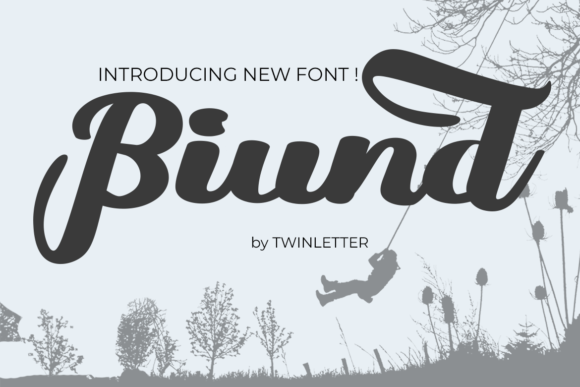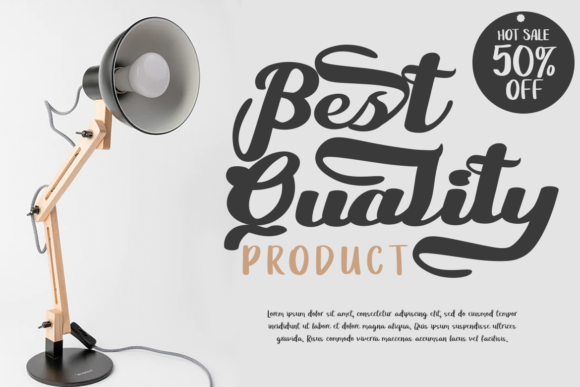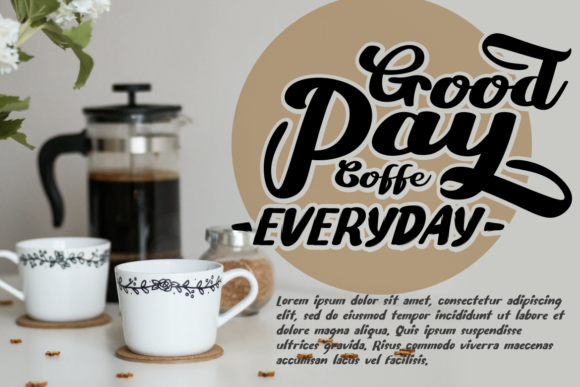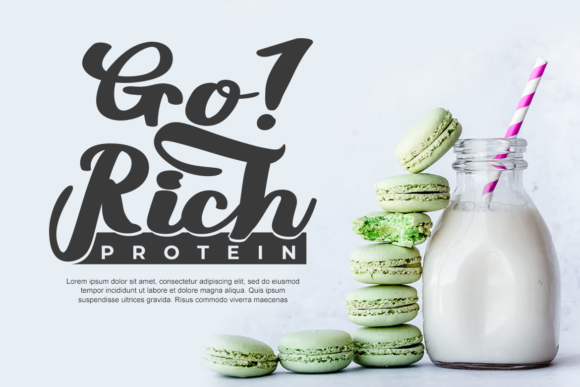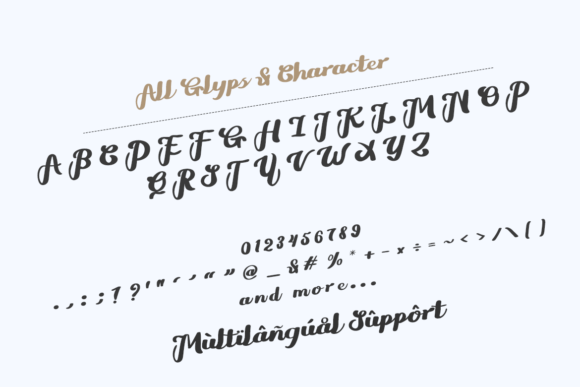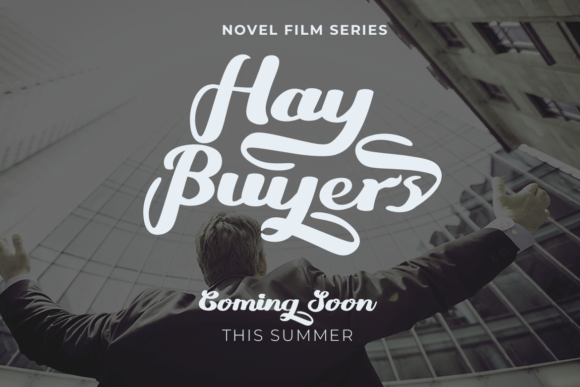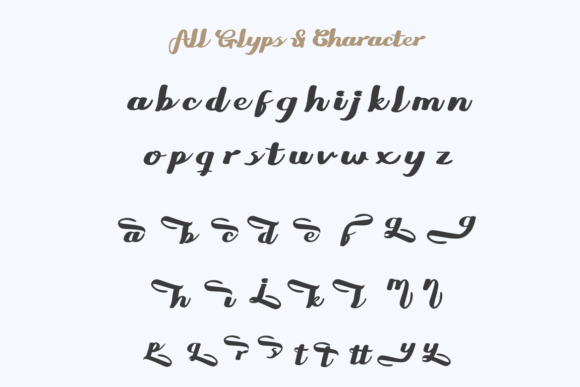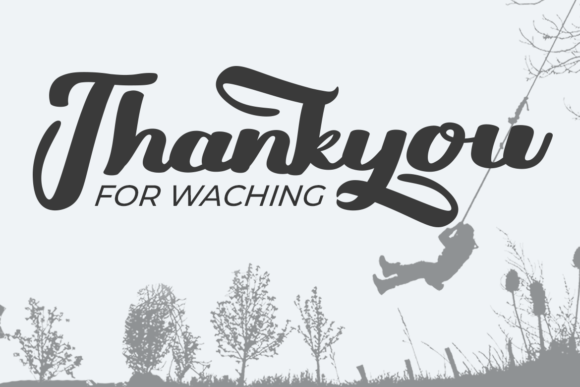
Biund Font
About Biund Font
Biund is a stunning script font, with a unique feel. Fall in love with its incredibly distinct and timeless style and use it to create spectacular designs!